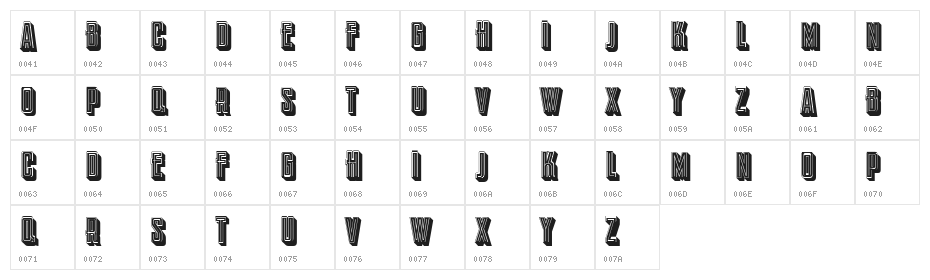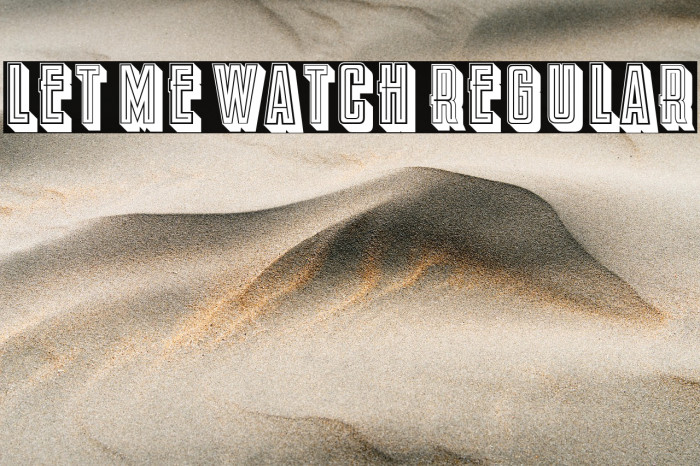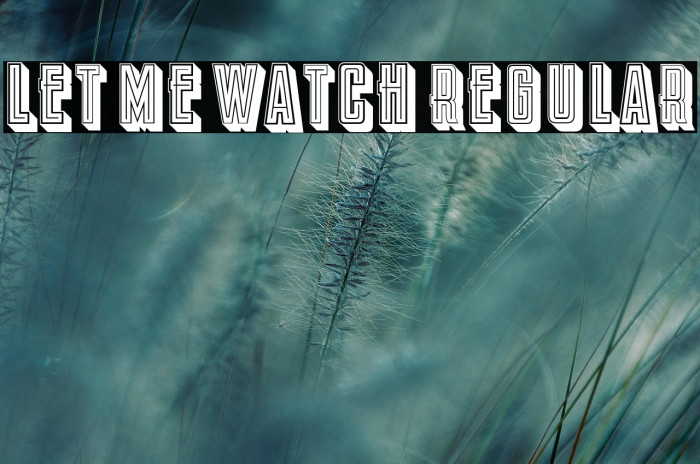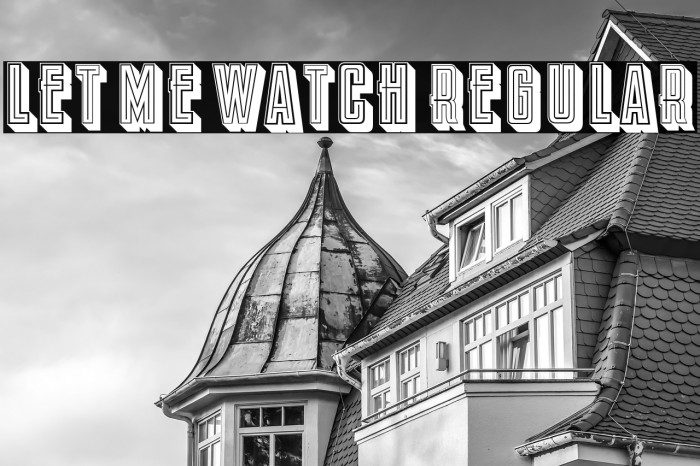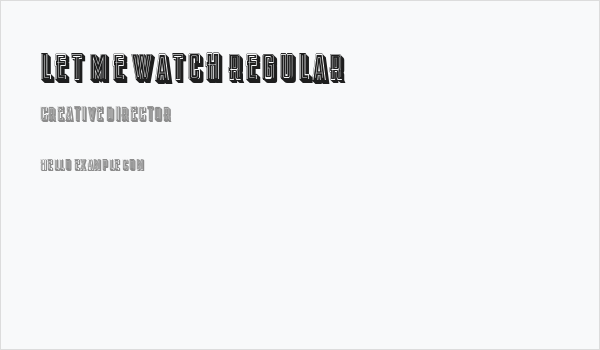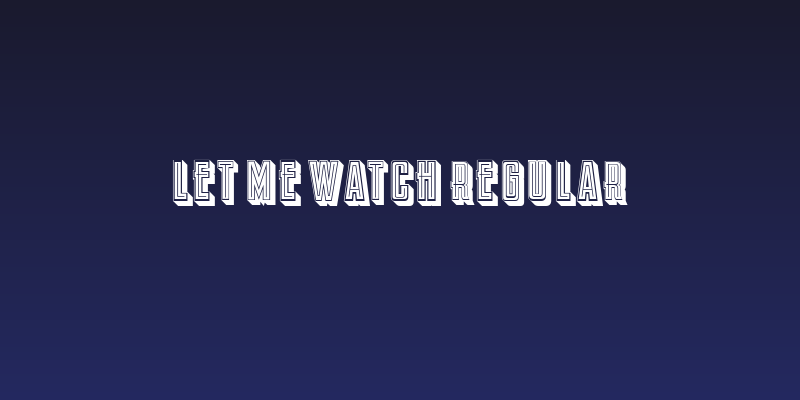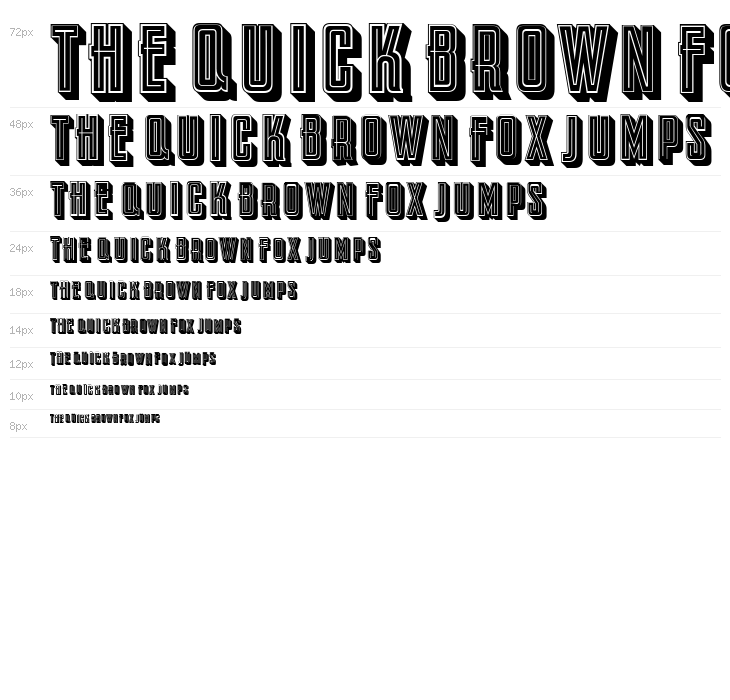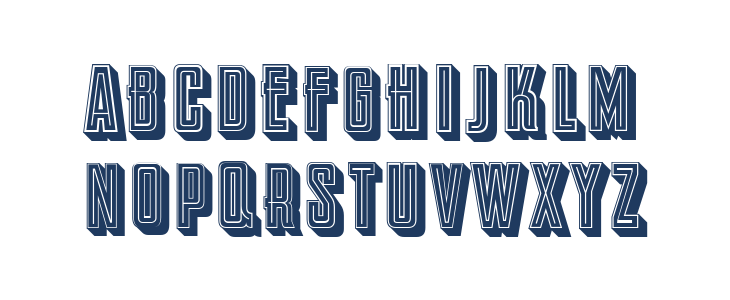
Let Me Watch Regular Font
Let Me Watch Regular Description
This font features a bold, three-dimensional design with a strong, impactful presence. Each character is outlined with a thick black shadow that gives a sense of depth and dimension. The letters are uppercase and have a geometric, block-like structure, which is consistent throughout the alphabet. The inner lines of the characters are clean and sharp, creating a striking contrast against the bold outlines. This font is highly decorative and eye-catching, making it suitable for projects that require a strong visual impact.
| Proposed Projects | Ideal for poster designs, signage, branding, and any project that requires a bold, attention-grabbing typeface. |